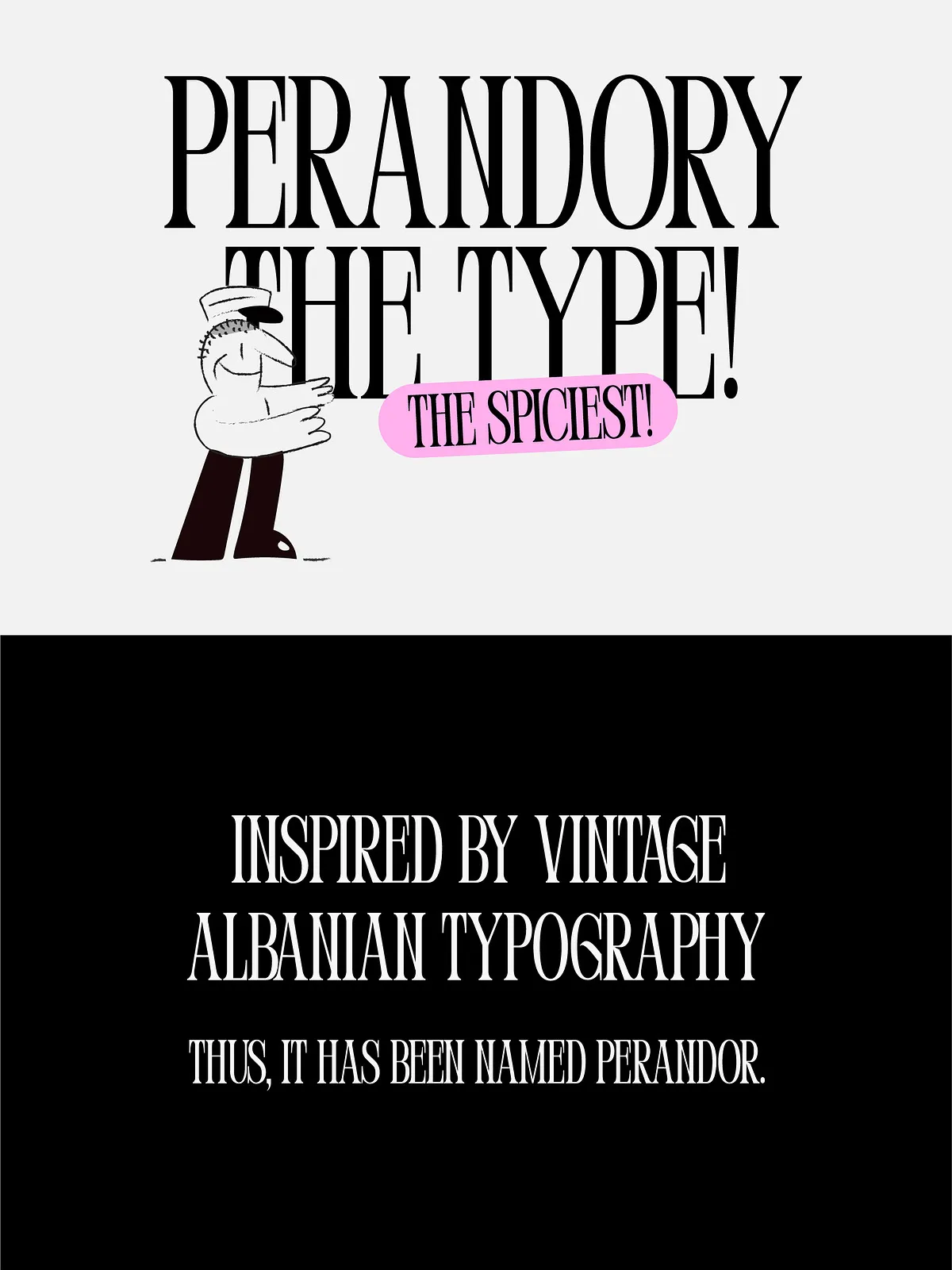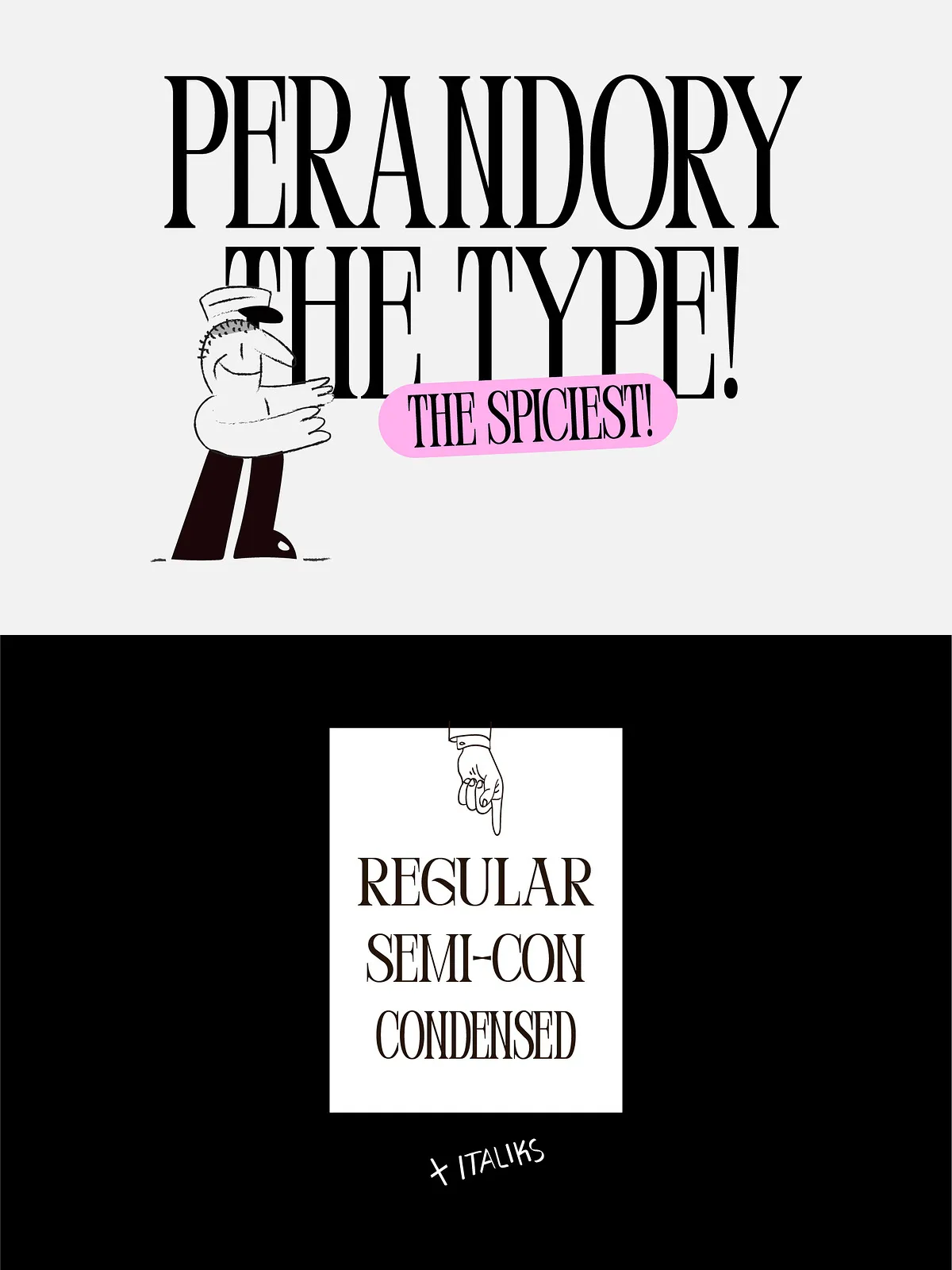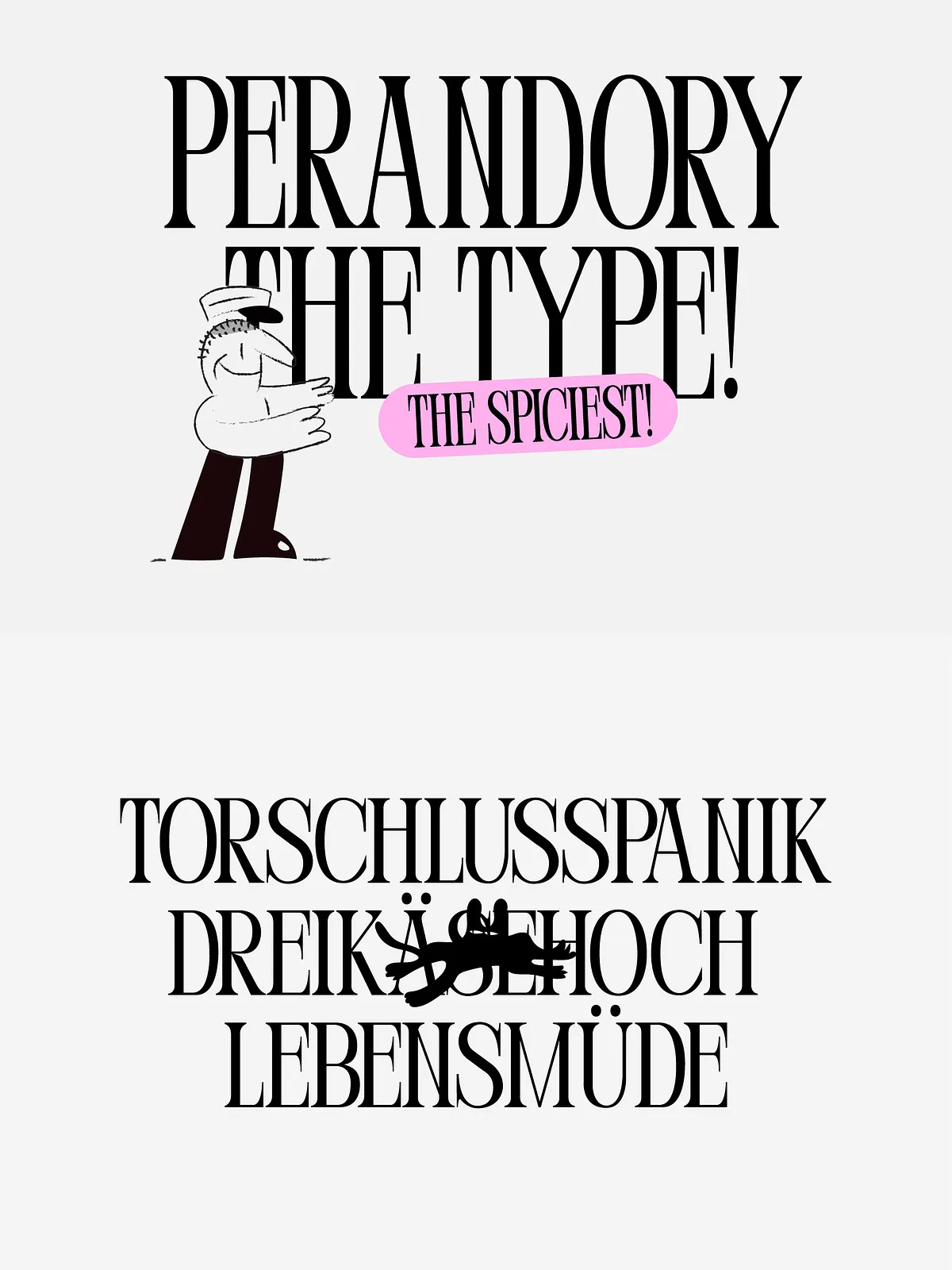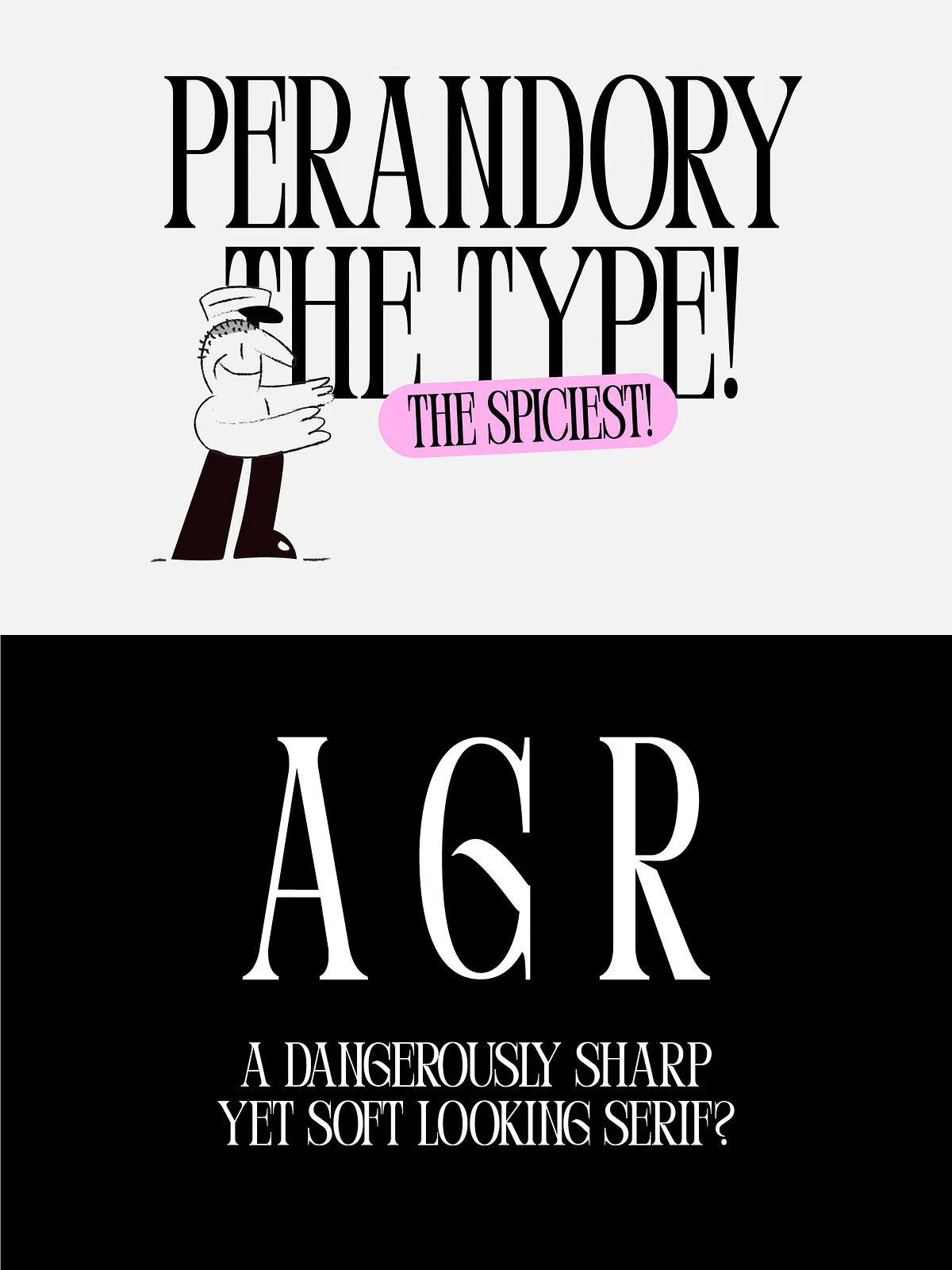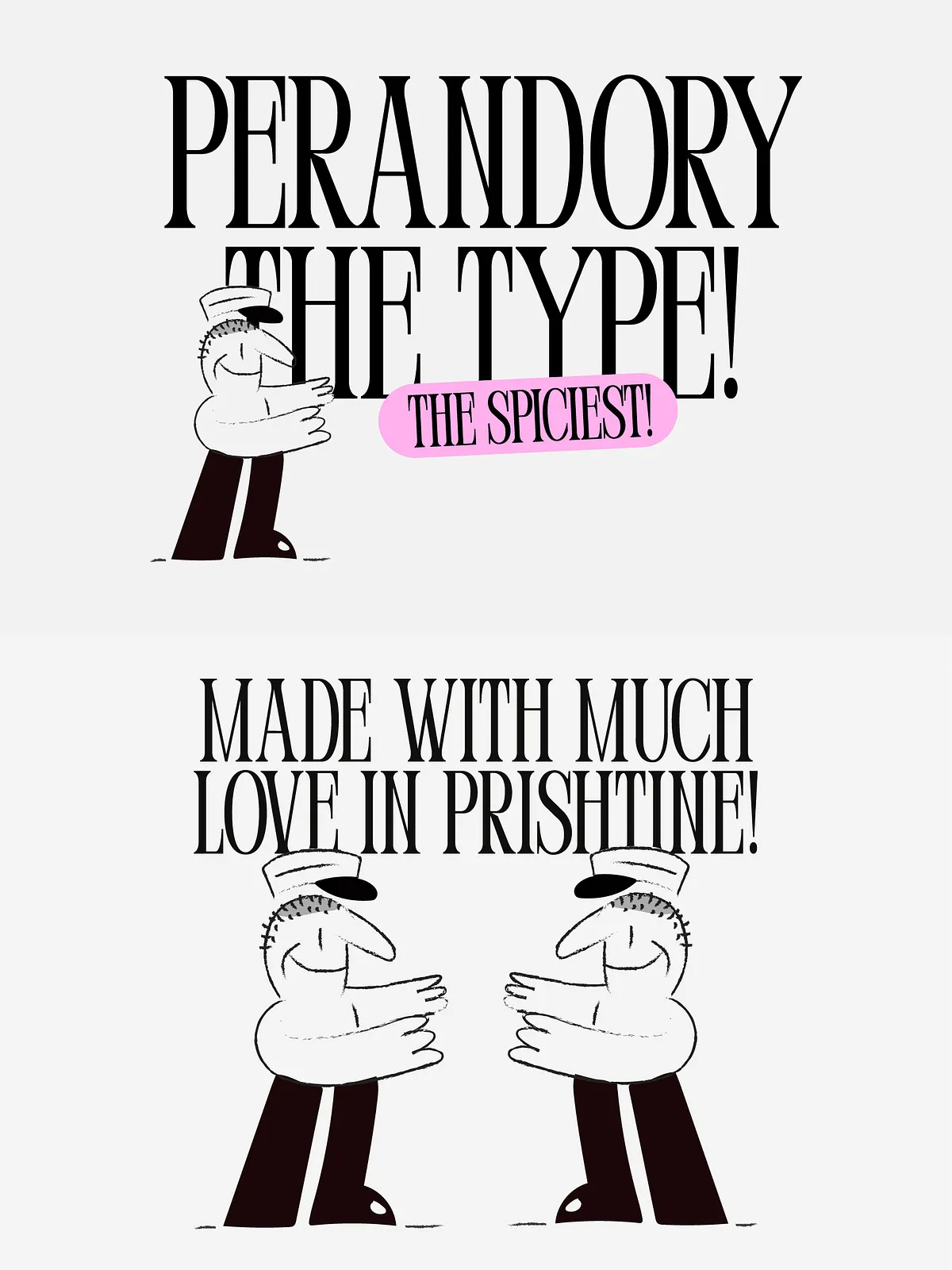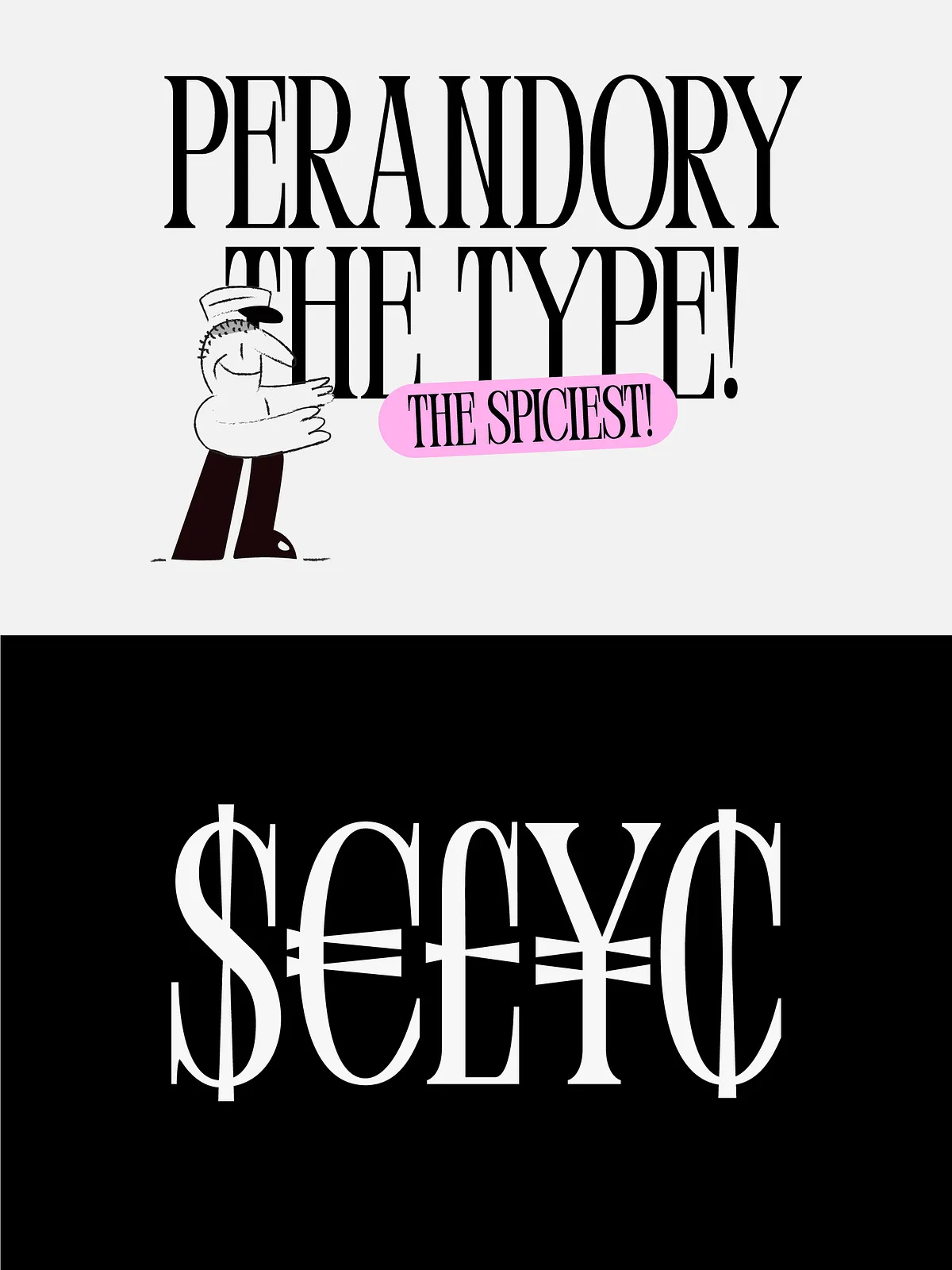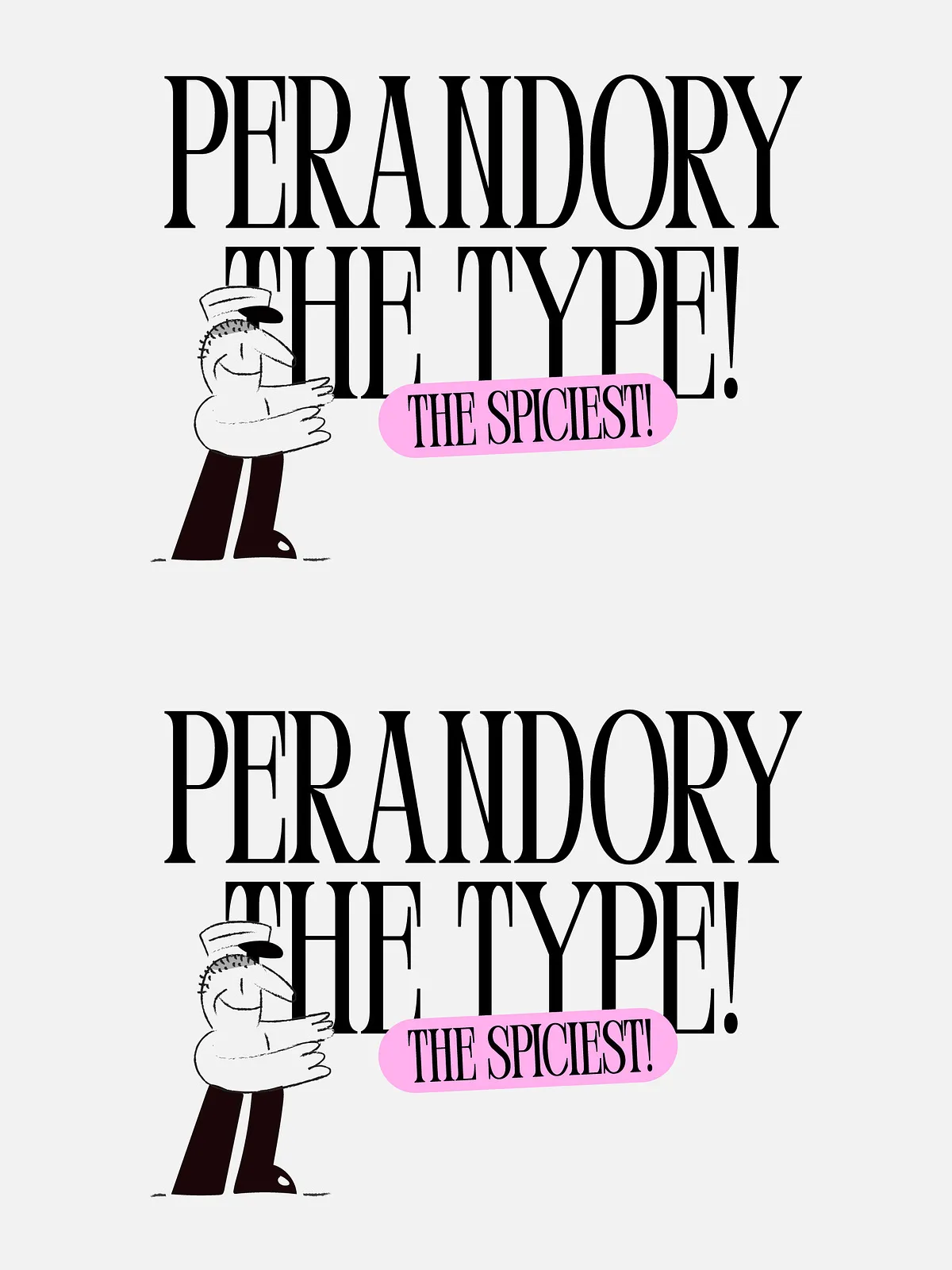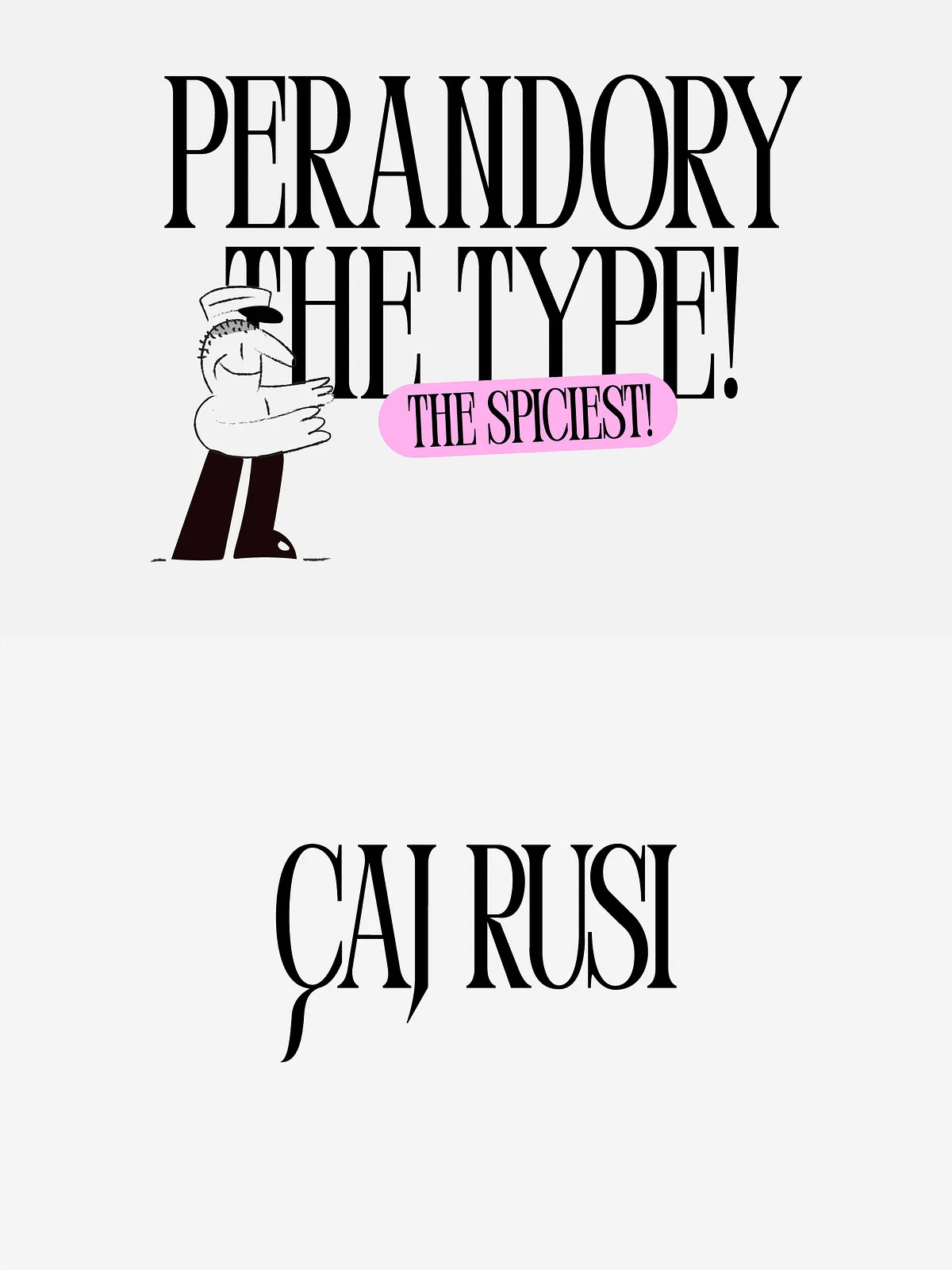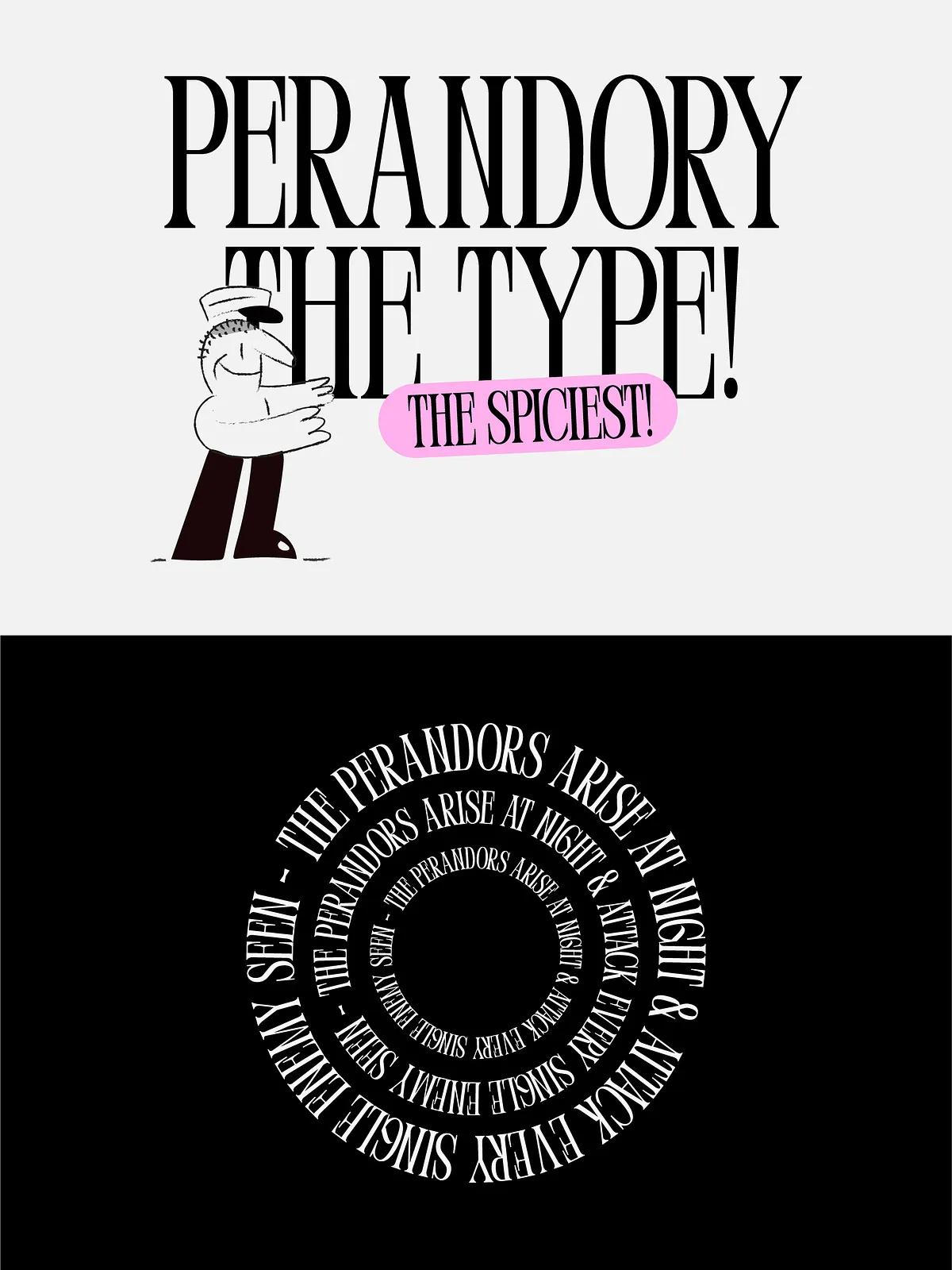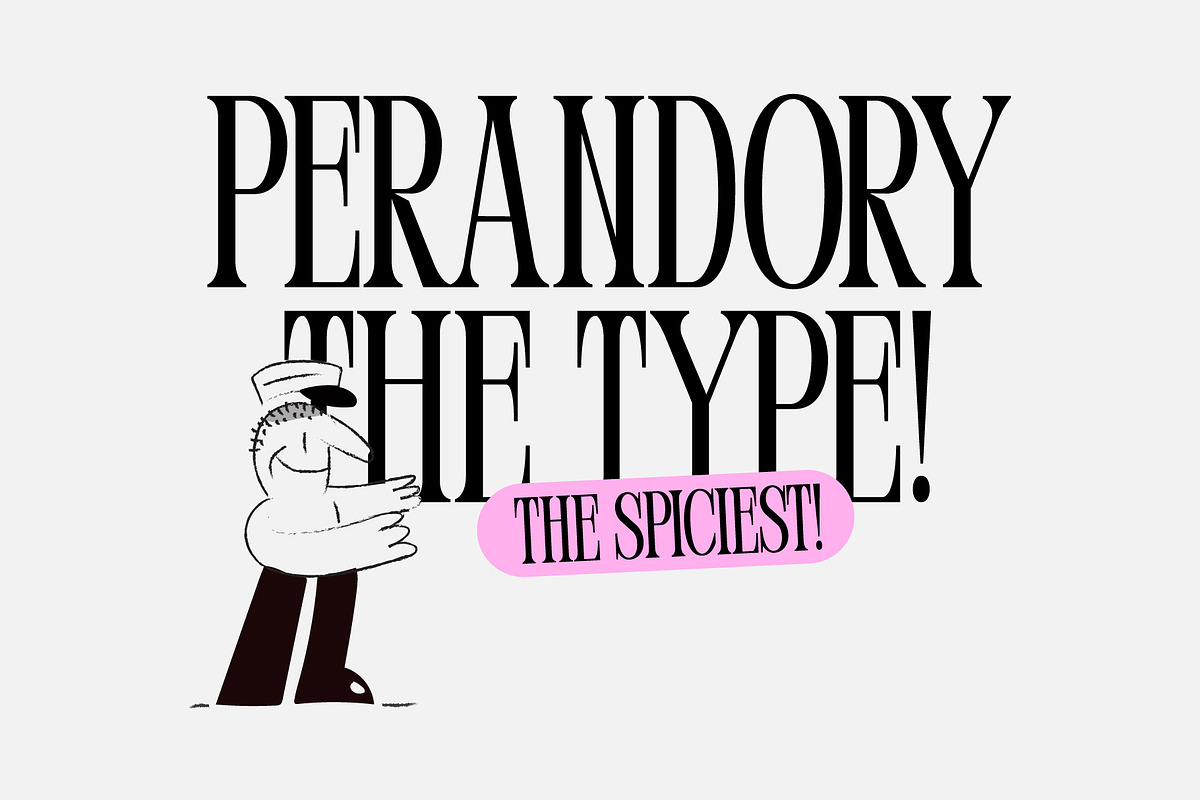
The Perandory font family is a remarkable typeface that creatively fuses vintage Albanian typography with modern design elements. This weird serif font, characterized by its sharp turns and distinctive personality, offers a hybrid aesthetic that simultaneously evokes nostalgia for the past while embracing contemporary trends. Ideal for designers seeking to infuse their projects with a strong cultural identity and innovative edge, Perandory stands out as a versatile yet focused font choice.
Design Inspiration and Aesthetic Appeal
Perandory draws deep inspiration from the rich heritage of Albanian lettering and typography. Its design encapsulates the essence of vintage scripts, breathing new life into historical styles. This font’s sharp turns and unusual serifs create a bold visual statement that merges history with modernity. The result is a font that feels both timeless and current, perfect for projects that want to blend tradition and trend seamlessly.
A Fusion of Old Era Charm and Modern Trends
The unique hybrid nature of Perandory means it retains the classic spirit of Albanian type craftsmanship while incorporating fresh, new-era touches. This intentional blend creates a charismatic font that honors old typography traditions without sacrificing relevance. Such a blend makes Perandory highly suitable for a wide range of applications, from artistic branding to editorial headings, packaging, and more.
Single Weight with Versatile Styles
While Perandory is presently offered in a single weight, it features multiple styles ranging from Regular to Condensed. This spectrum of styles empowers designers to tailor the font’s visual impact according to project needs, creating either spacious or compact typographic expressions. Notably, Perandory is currently available only in uppercase, reinforcing its strong, authoritative personality and making it perfect for impactful headlines and display text.
Versatile Applications of Perandory Font
Perandory’s distinctive look and cultural resonance make it a perfect choice for projects that require a refined yet bold typographic voice. Here are some of the many ways Perandory can elevate your creative endeavors:
- Branding and Identity: Establish a unique brand presence that blends historical richness with modern style. Perandory lends authority and sophistication to logos and brand marks.
- Editorial and Display Typography: Create captivating headlines, titles, and editorial layouts that demand attention and embody cultural storytelling.
- Packaging Design: Enhance product appeal by using Perandory to convey heritage and craftsmanship on labels and packaging materials.
- Artistic and Cultural Projects: Perfect for projects requiring a nod to Albanian heritage or a vintage vibe infused with contemporary design.
Designers’ Perspective: Why Choose Perandory?
Designers are continuously searching for fonts that break the mold and offer distinct character. Perandory rises to this challenge by delivering a font that is not only visually engaging but also packed with cultural significance. Its sharp serifs and dynamic shapes inject energy and personality into any design, making it easier to communicate a strong, authentic message. Plus, the availability of styles from Regular to Condensed offers the flexibility to adjust the font’s spatial presence for different design contexts.
Technical Details and Availability
Currently, Perandory is available exclusively in uppercase letters, emphasizing its bold and assertive nature. Future expansions may include more weights and styles to further enhance versatility. Its single-weight format is optimized for maximum visual impact, making it straightforward to use in design projects that require clarity and distinctiveness.